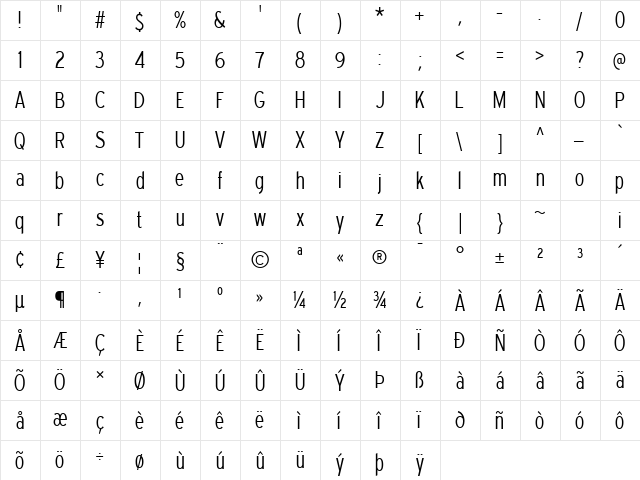
Expressway Condensed Light
Design Context for Expressway Typeface
Expressway is a composed and adaptable typeface that performs quietly and consistently across a wide range of design contexts. Its slender proportions lend an understated elegance to any composition. Its narrow stance lets it pack a punch even in space-constrained designs.
Pro Tip: Pair Expressway with a font of contrasting weight or personality to build a more expressive typographic hierarchy.